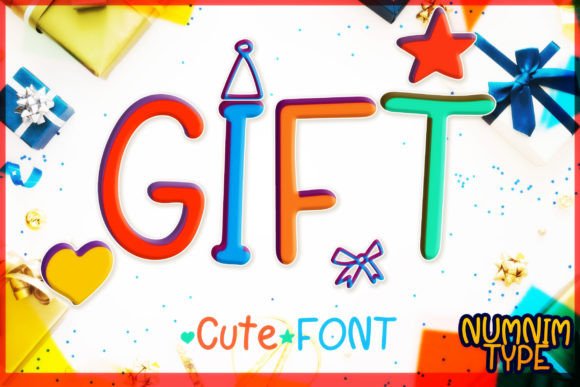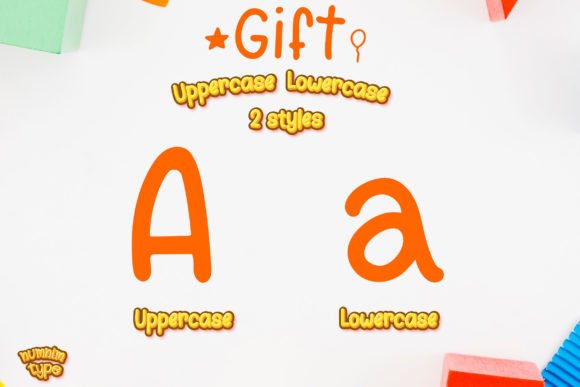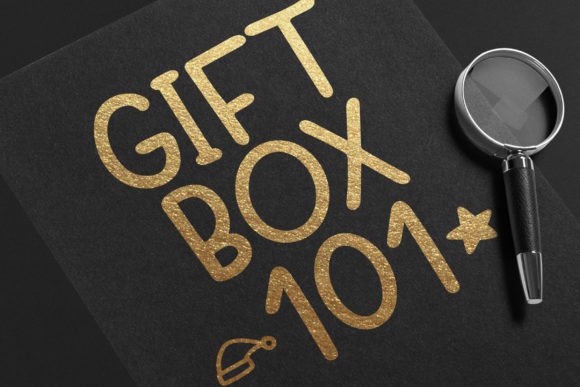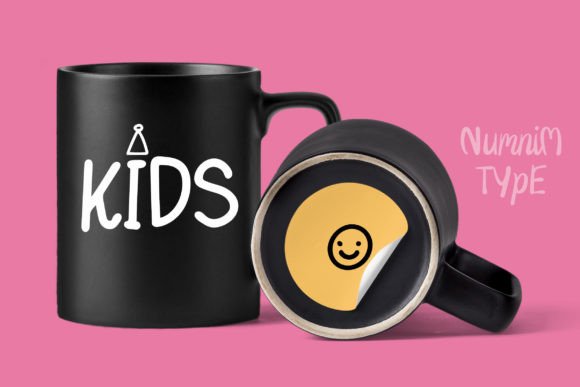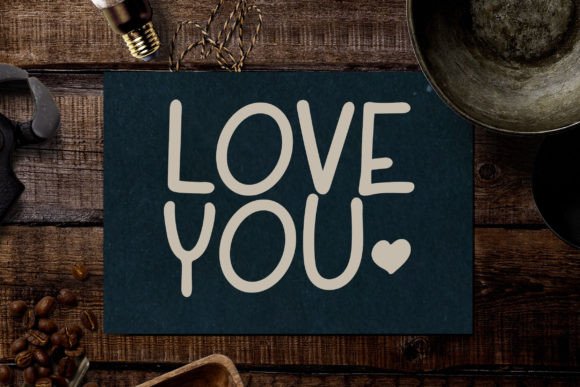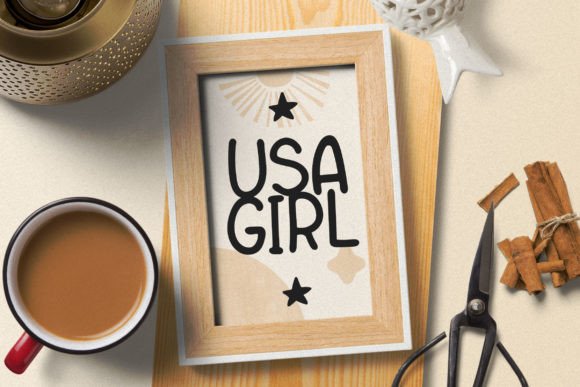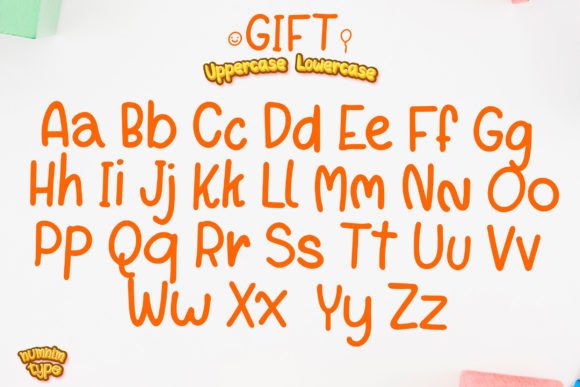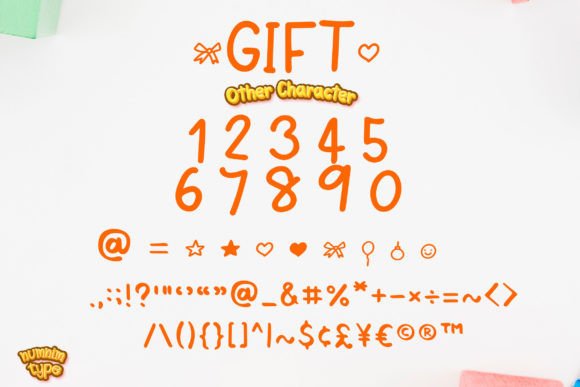
Gift Font
About Gift Font
“Gift” is a cute and uniquely crafted handwritten font, tailor-made for adding a touch of fun and playfulness to various creative projects. The font’s fun and playful characters make it an ideal choice for applications like stickers, mugs, t-shirts, ornaments, cards, and more.
The uniqueness of “Gift” lies in its handwritten style, which adds a personal and handmade feel to your designs. This quality is especially valuable for projects that aim to convey a sense of warmth, charm, and individuality.
The versatility of this font shines through in its suitability for a variety of physical and digital applications. Whether you’re creating stickers for digital communication, designing custom mugs or t-shirts, or crafting decorative ornaments and cards, “Gift” brings a lighthearted and delightful aesthetic to each project.
The PUA encoding of the font ensures easy access to all glyphs and swashes, providing designers with flexibility and convenience in incorporating various elements into their designs. This feature enhances the font’s usability and encourages creative exploration.
In summary, “Gift” stands out as a cute and uniquely crafted handwritten font that brings a fun and playful vibe to your creative projects. Its versatility and PUA encoding make it a delightful choice for designers looking to infuse their work with a touch of charm and individuality.